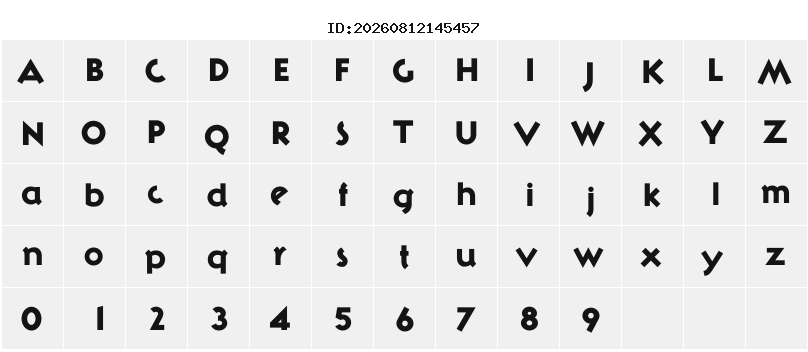
Rio Preview
• Font Name: Rio
• Full Font Name: Rio
About Rio.ttf
Rio.ttf is a modern, elegant sans-serif font designed for ultimate readability and visual harmony. Perfect for branding, headlines, web design, and print materials.